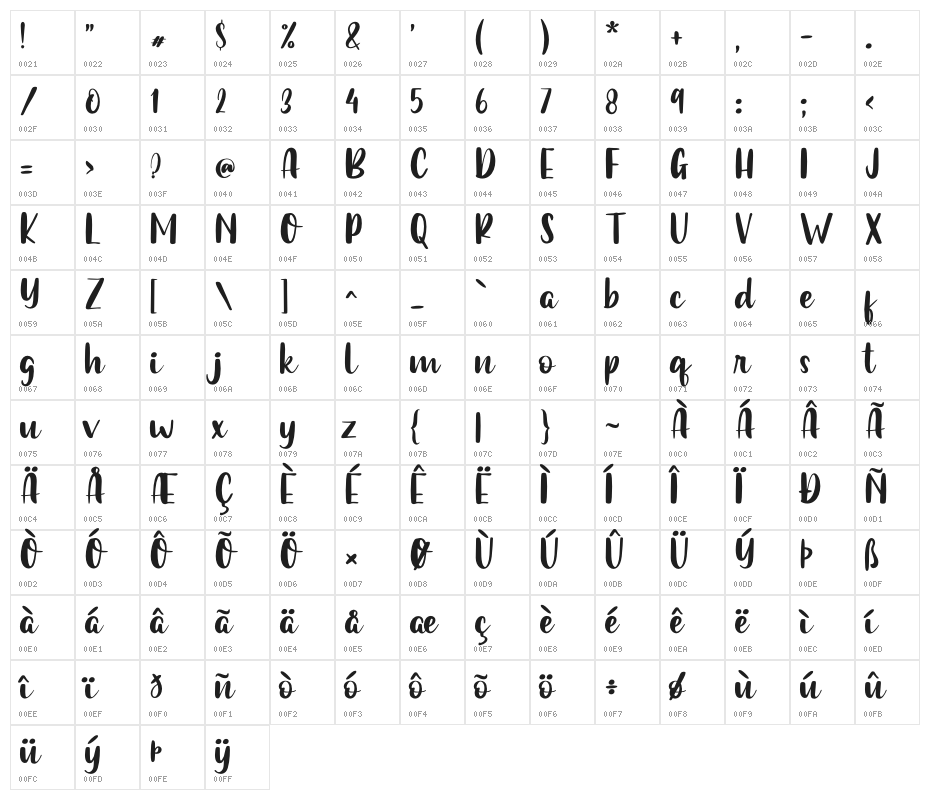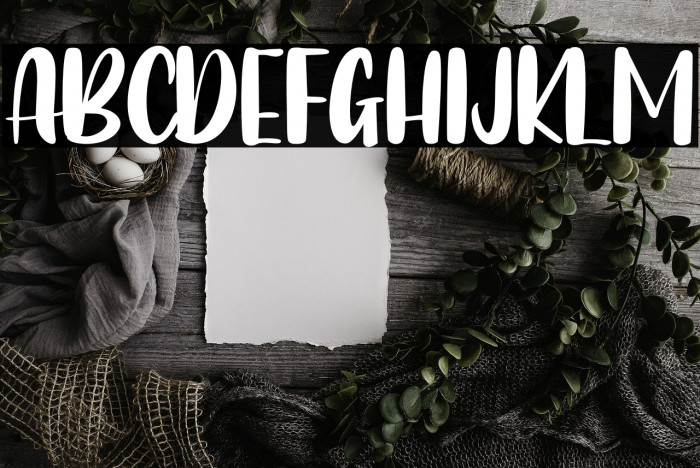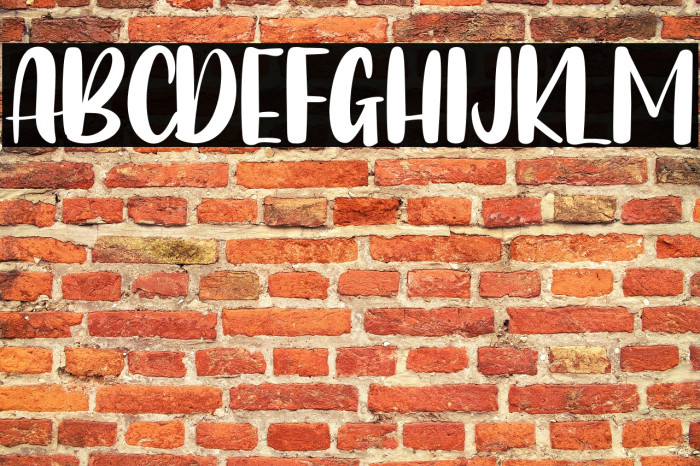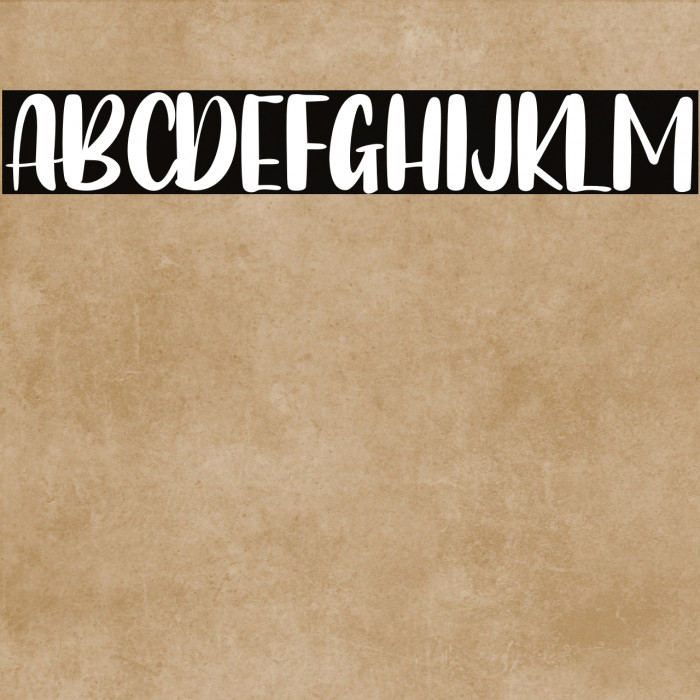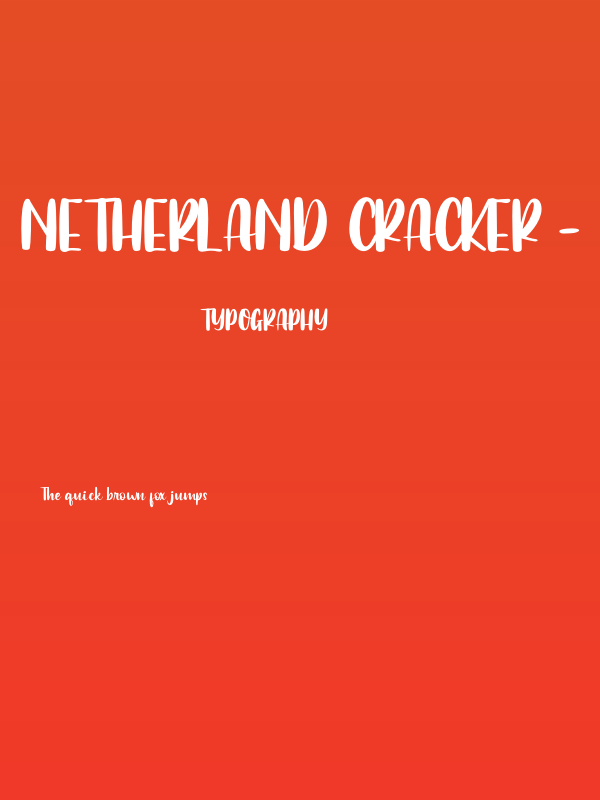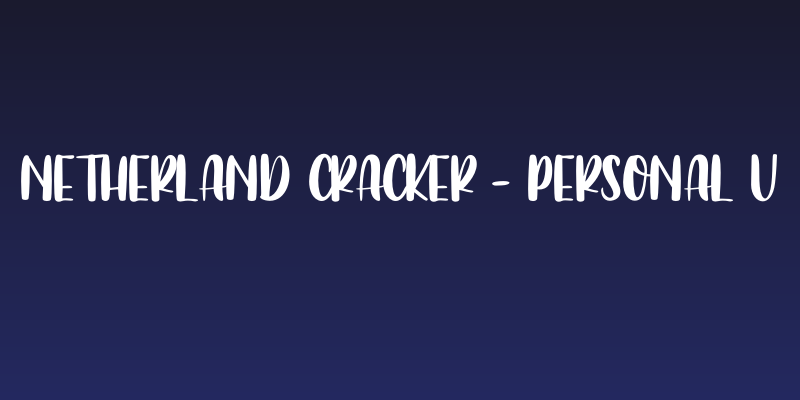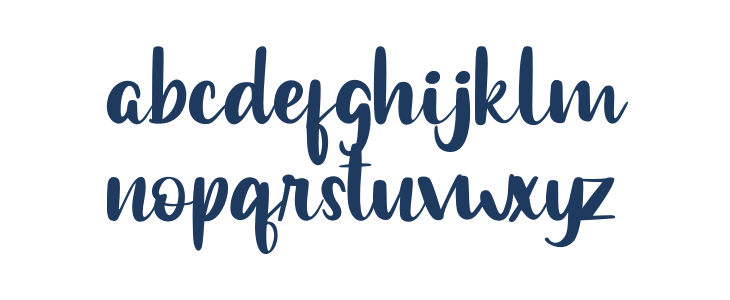
Netherland Cracker - Personal U Font
Netherland Cracker - Personal U Description
This font features a bold and expressive handwritten style, characterized by its fluid and dynamic strokes. The uppercase letters are tall and slightly condensed, while the lowercase letters maintain a consistent flow with a playful touch. The numbers and special characters complement the overall style with their bold presence and unique flair. The font's design is both modern and artistic, making it suitable for creative projects that require a personal and engaging touch.
| Overall Style | Modern, Artistic |
| Proposed Projects | Ideal for branding, invitations, posters, and social media graphics that require a personal and artistic touch. |